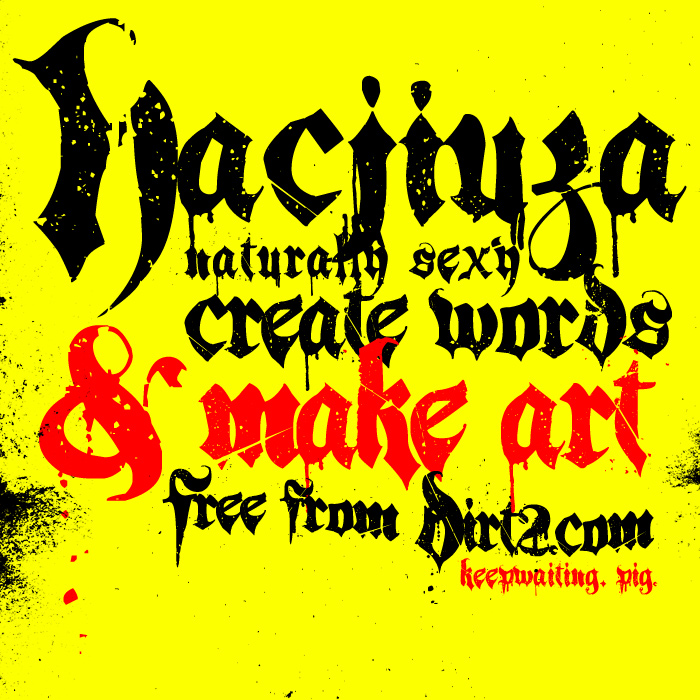
A grunged old ugly gothic font, with originally handwritten letters. Inspired simply from old blackletter writing, Meant to look off and sort of wacked out.